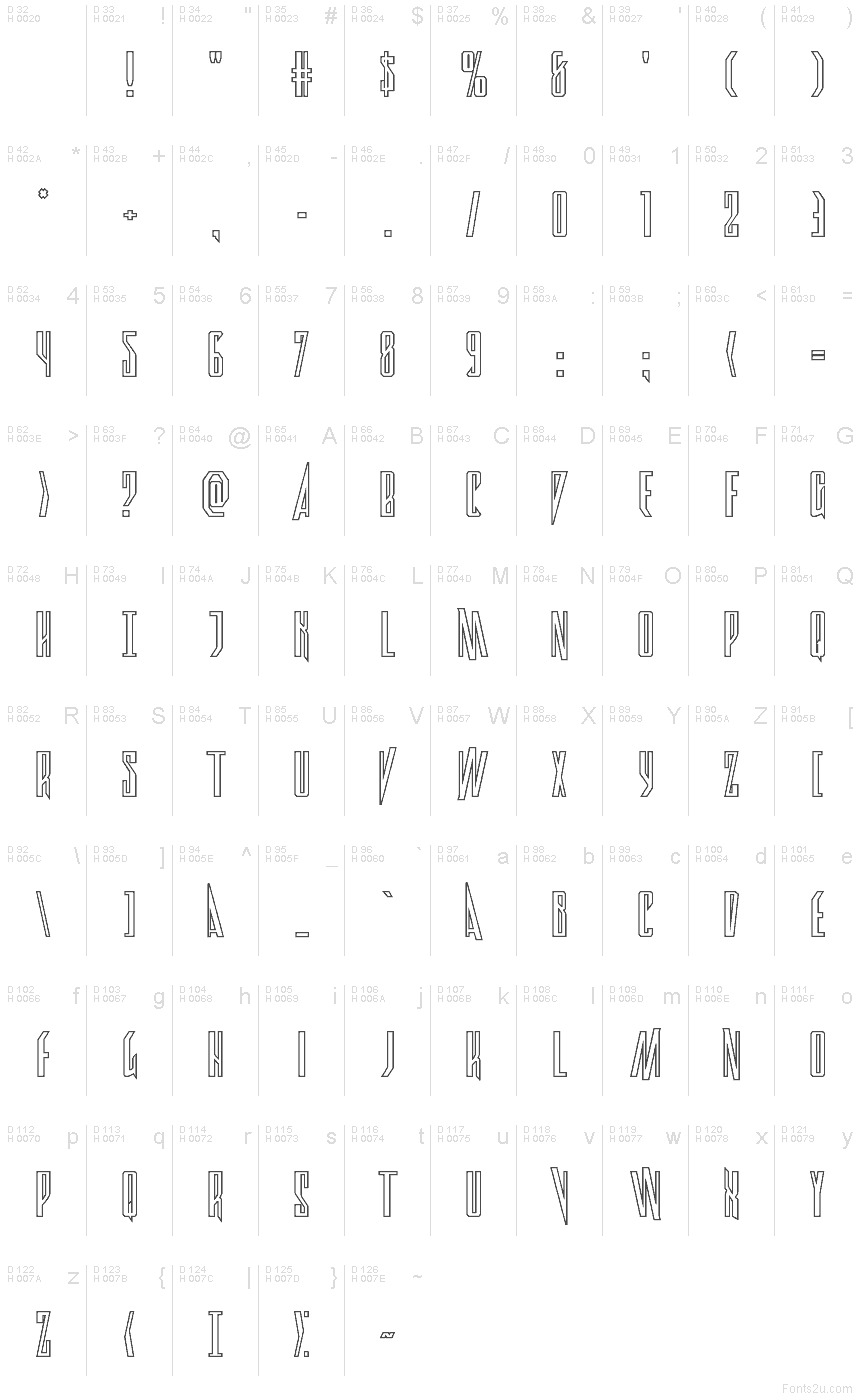
Archnemesis Outline
Archnemesis Outline font by Iconian Fonts is a free outline display typeface that looks like it walked straight off a retro sci‑fi movie poster. Tall, blade-like letters, sharp angles, and clean wireframe strokes give it a sleek, villainous energy—like neon signage for a futuristic showdown. The hollow interiors keep it light and airy, so even with its dramatic shapes, it doesn’t feel heavy or cluttered at large sizes.
Using Archnemesis Outline, you can brand an esports team, design comic book covers, create dramatic YouTube thumbnails, build sci‑fi event posters, or craft titles for game UIs and streaming overlays. This free font thrives in oversized headlines where its angular rhythm can really stretch out. For a strong combo, pair Archnemesis Outline with a simple, geometric sans serif for body text to let the outlined forms stay in the spotlight.